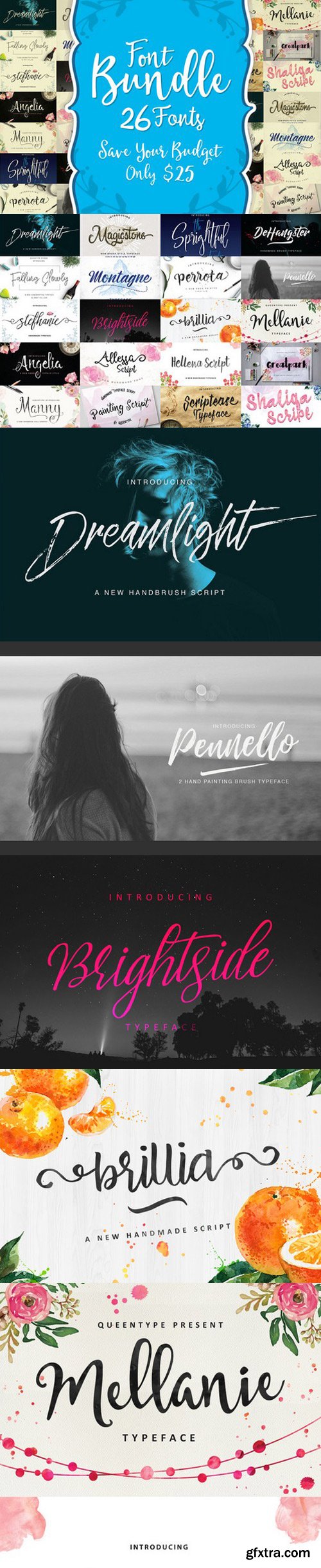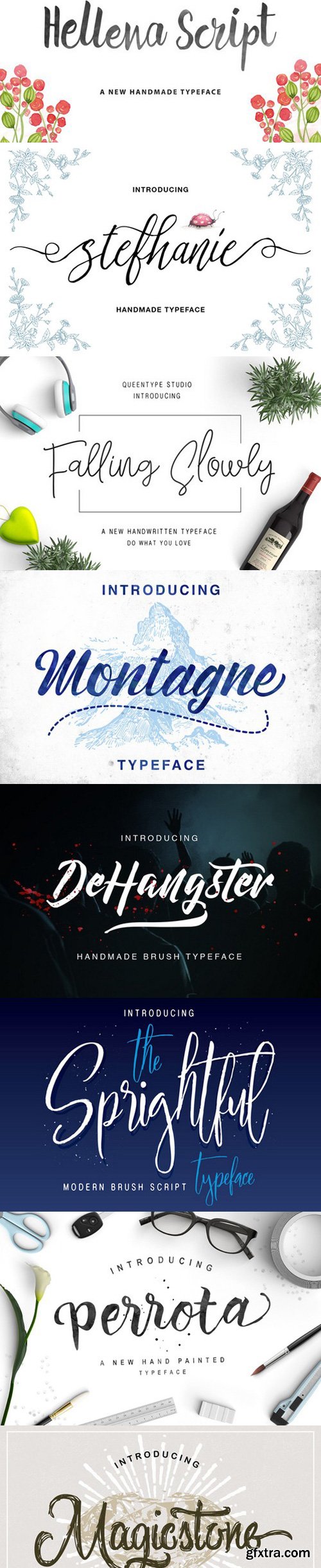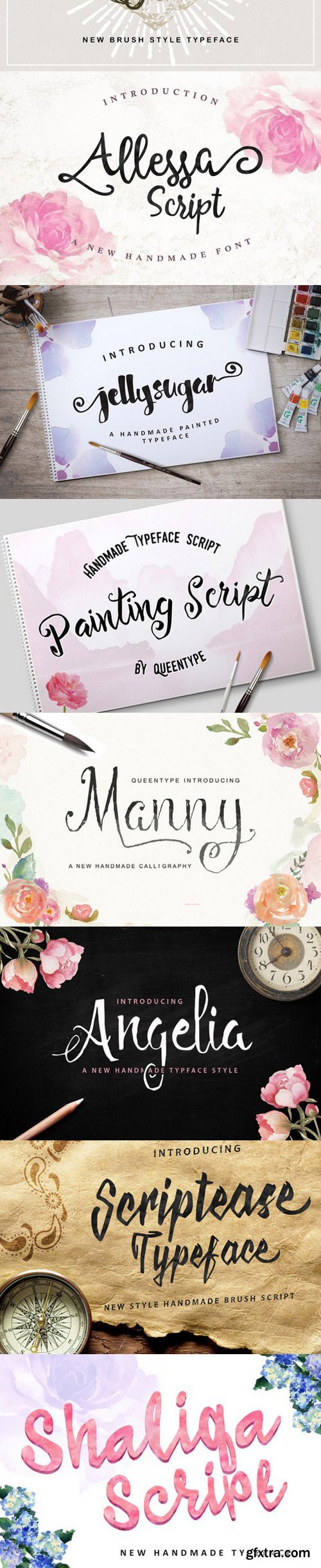
The Handmade Fonts Bundle is a beautiful handmade script give the natural looks. Alternate character contain with opentype features. Stylistic alternates, Ligature and more. You can access all those alternate characters by using OpenType savvy programs such as Adobe Illustrator and Adobe InDesign.
Great for Apparel Brand, Logos, printed quotes, invitations, image overlays, greeting cards, product packaging, text headers, any greeting cards, book cover, Painting design style, or any design that needs natural and personal touch & whatever else your imagination holds! . Mix and match the alternate characters to add an attractive message to your design.